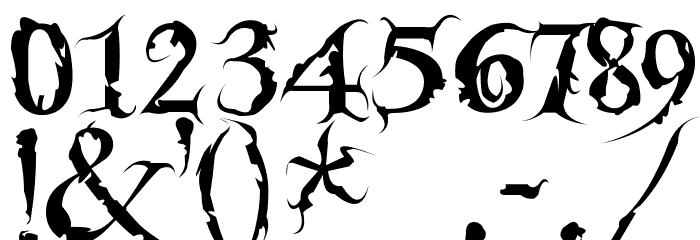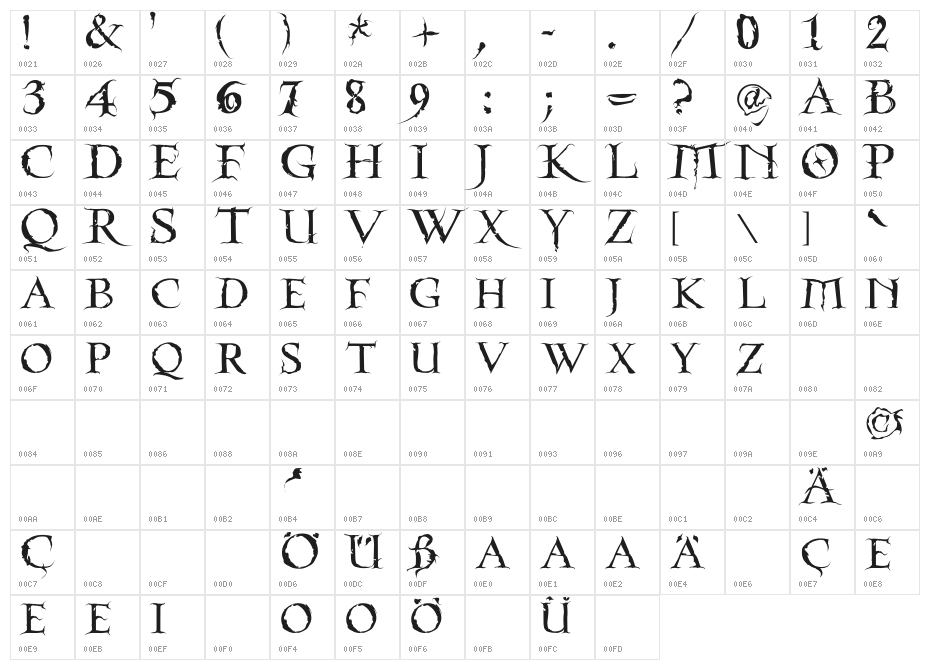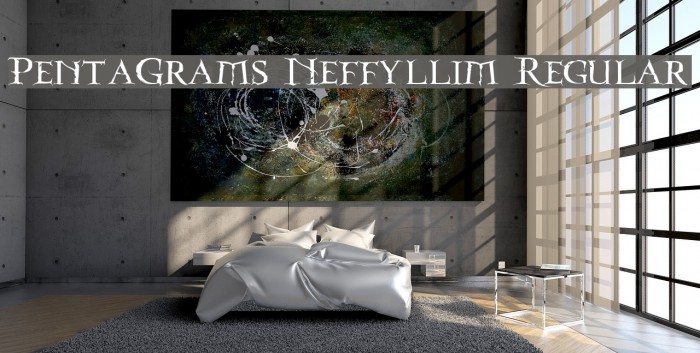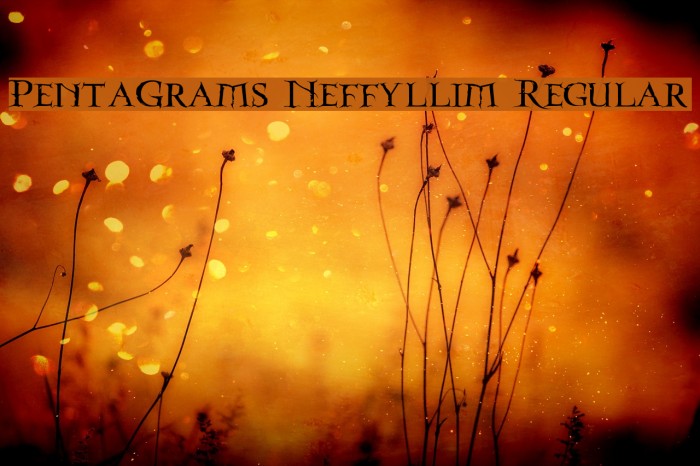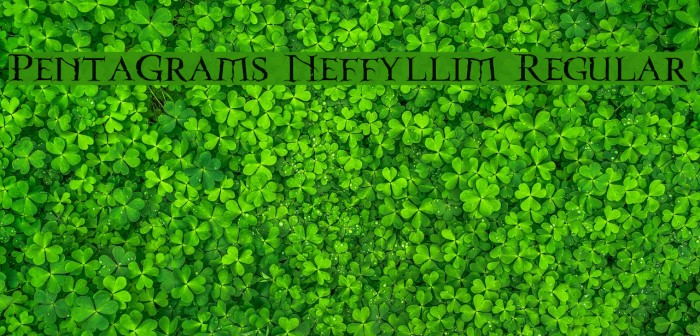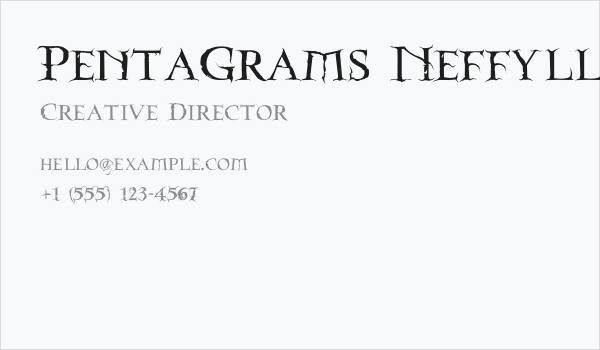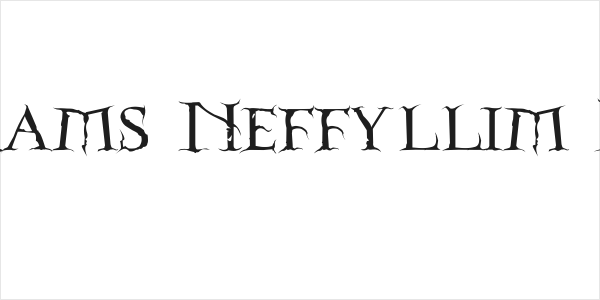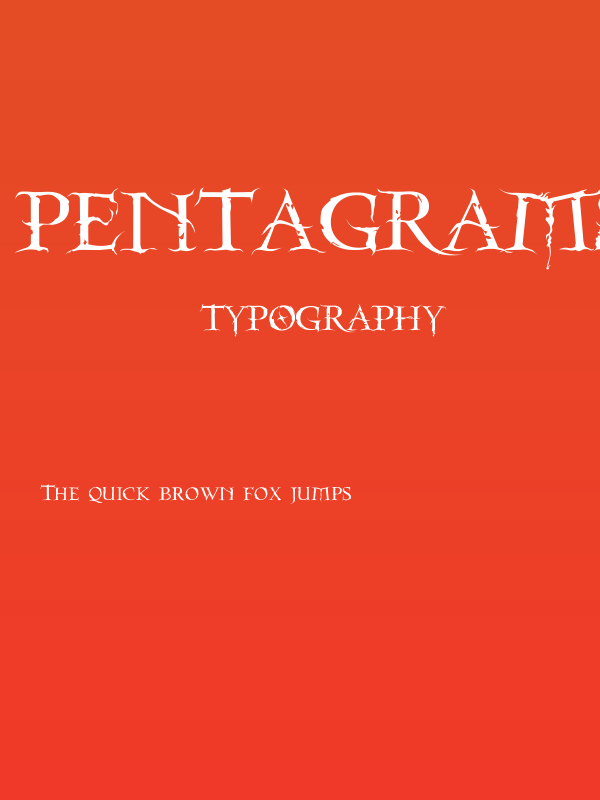
PentaGrams Neffyllim Regular Font
PentaGrams Neffyllim Regular Description
This font features an intricate and gothic design, characterized by sharp, thorn-like embellishments that extend from the main strokes of each character. The uppercase and lowercase letters maintain a consistent style, with dramatic flourishes that give a sense of movement and intensity. The numerals are equally elaborate, with unique curves and pointed accents that mirror the letterforms. Special characters are designed with the same attention to detail, ensuring a cohesive look across all glyphs. The overall appearance is bold and striking, making it ideal for projects that require a dramatic and eye-catching typeface.
| Overall Style | Gothic, Decorative |
| Proposed Projects | Ideal for horror-themed designs, album covers, posters, and any project requiring a bold, gothic aesthetic. |